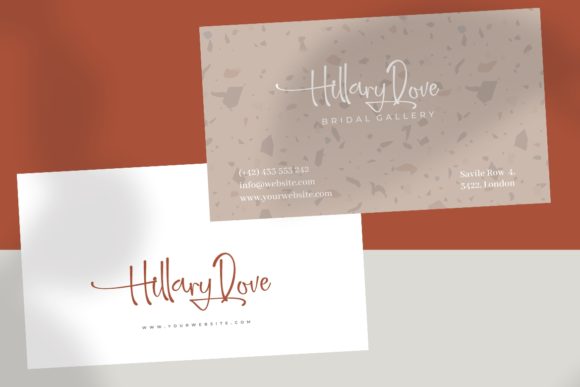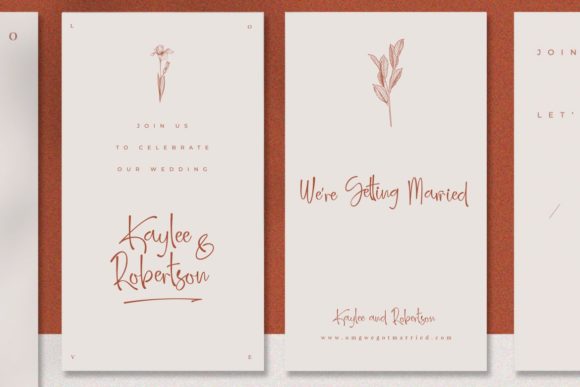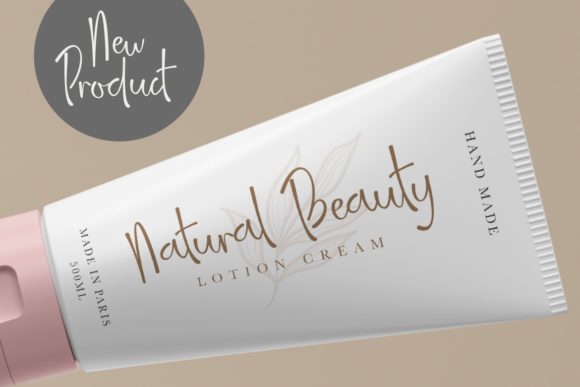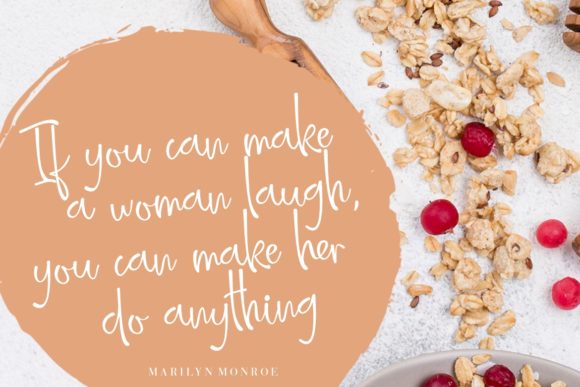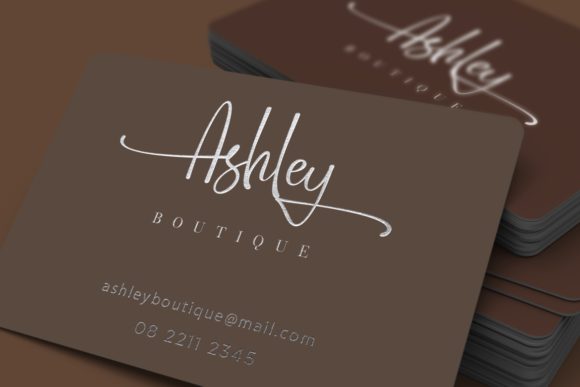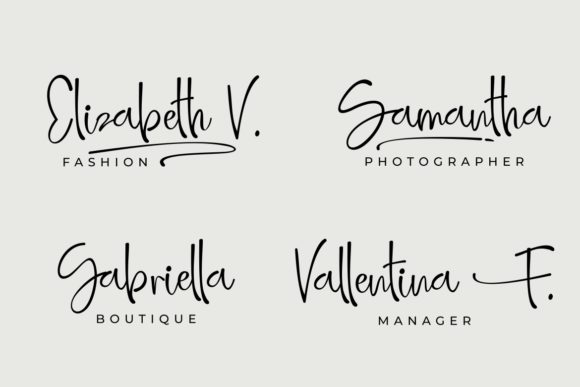
The Perfect Touch of Elegance with Amellia Ink Font
Have you ever stared at a blank page, struggling to bring your creative vision to life? The blank space stares back at you, taunting you to make a move. But then, it happens – a spark of inspiration strikes, and you start to see the world in a new light. This is where the magic of design begins, and for many, it’s all about finding the perfect font to bring their ideas to life.
Enter Amellia Ink Font, a stunning, handwritten font that adds a touch of elegance to any project. Whether you’re creating a logo, watermark, or wedding invitation, this beautiful font is the perfect choice. Its PUA encoding means that you can access all of its glyphs and swashes with ease, giving you complete control over your design. With Amellia Ink Font, you’ll be able to add a personal touch to your work, making it truly unique and special.
Key Features of Amellia Ink Font
- Font Family: Amellia Ink is a unique, handwritten font family consisting of 6 styles, including Regular, Italic, Bold, Bold Italic, Script, and Script Italic.
- Size and Resolution: Amellia Ink is designed to work well at various sizes and resolutions, from small text to large display headlines, with optimal results at 300 DPI (dots per inch).
- Unique Characteristics: This font features a beautiful, cursive handwriting style with a modern twist, making it perfect for creative projects, invitations, and other designs that require a personal touch.
- Language Support: Amellia Ink supports a wide range of languages, including English, Spanish, French, German, Italian, Portuguese, and many others, making it a great choice for multilingual designs.
Amellia Ink Font Review
I’ve had the chance to work with Amellia Ink Font, and here’s my honest review.
The Amellia Ink Font is a beautiful, elegant script font that’s perfect for creative projects, like wedding invitations or luxury brand designs. It’s highly legible, even at smaller font sizes, making it ideal for body text or short paragraphs.
- Beautiful, elegant script design
- Highly legible, even at smaller font sizes
- Perfect for creative projects, like wedding invitations or luxury brand designs
While the Amellia Ink Font is a great choice for many projects, it does have some limitations. It’s not suitable for projects that require a bold, eye-catching font, and it may not be the best choice for text-heavy projects where readability is crucial.
- Not suitable for bold, eye-catching designs
- May not be the best choice for text-heavy projects
Overall, I think the Amellia Ink Font is a great choice for projects that require a beautiful, elegant script font. It’s highly legible and perfect for creative projects, but may not be the best choice for every project.
Tips for Getting the Most Out of Amellia Ink Font
Here are some tips to get the most out of Amellia Ink Font:
- Use it for creative and artistic designs.
- Pair it with other fonts for a unique look.
- Experiment with different font sizes and colors.
Some common use cases for Amellia Ink Font include:
- Artistic posters and prints.
Alternatives to Amellia Ink Font for Designers
Great Vibes is a modern, elegant script font that works well for invitations, posters, and other creative projects. It’s perfect for designers who want a unique, stylish look without being too flashy. Compared to Amellia Ink Font, Great Vibes has a more fluid, connected feel, making it ideal for longer text passages.
Carolyna Pro is a beautiful, high-end script font that’s perfect for luxury branding, weddings, and other high-end projects. It’s a great alternative to Amellia Ink Font for designers who want a sophisticated, elegant look with a touch of whimsy. Carolyna Pro has a more refined, precise feel compared to Amellia Ink Font, making it ideal for projects where precision is key.
The recommended font size for optimal readability varies depending on the application and intended audience. However, a general rule of thumb is to use font sizes between 12-18 points for body text and 24-36 points for headings.
Does Amellia Ink support Unicode characters?
Yes, Amellia Ink supports a wide range of Unicode characters, including Latin, Cyrillic, and Greek scripts. This ensures compatibility with languages that use these scripts.